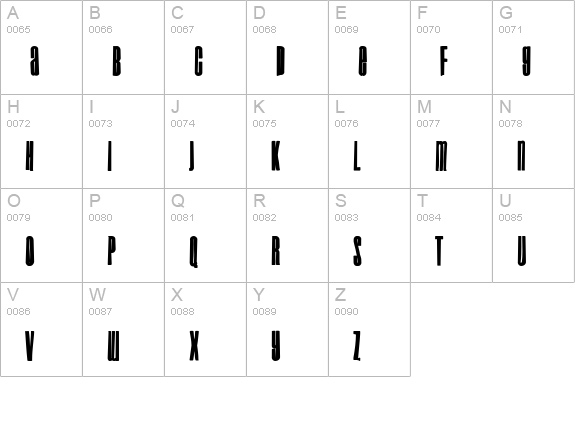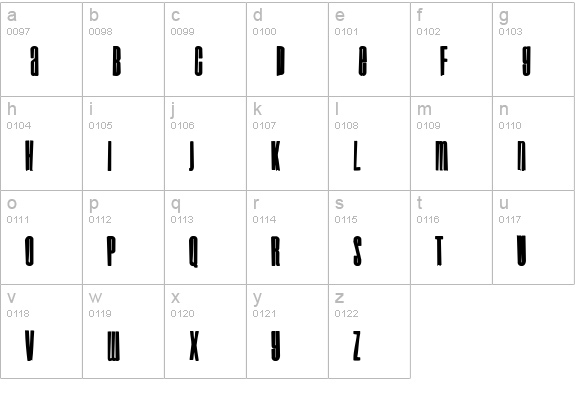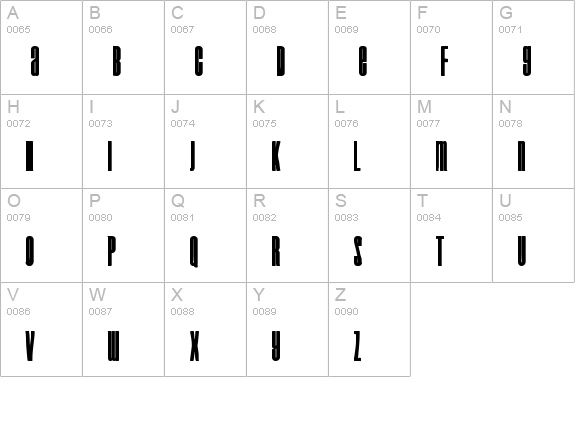
Droid Ink font is a modern and stylish typeface that exudes creativity and innovation. With its sleek lines and futuristic design, this font is perfect for projects that require a touch of sophistication and elegance. The unique character shapes and smooth curves make Droid Ink font stand out from the crowd, adding a contemporary flair to any design. Best of all, Droid Ink font is available for free download at FontsMarket.com. Whether you're working on a branding project, a website design, or any other creative endeavor, this font will elevate your work to the next level. Don't miss out on the opportunity to enhance your projects with the sleek and versatile Droid Ink font - download it for free today!